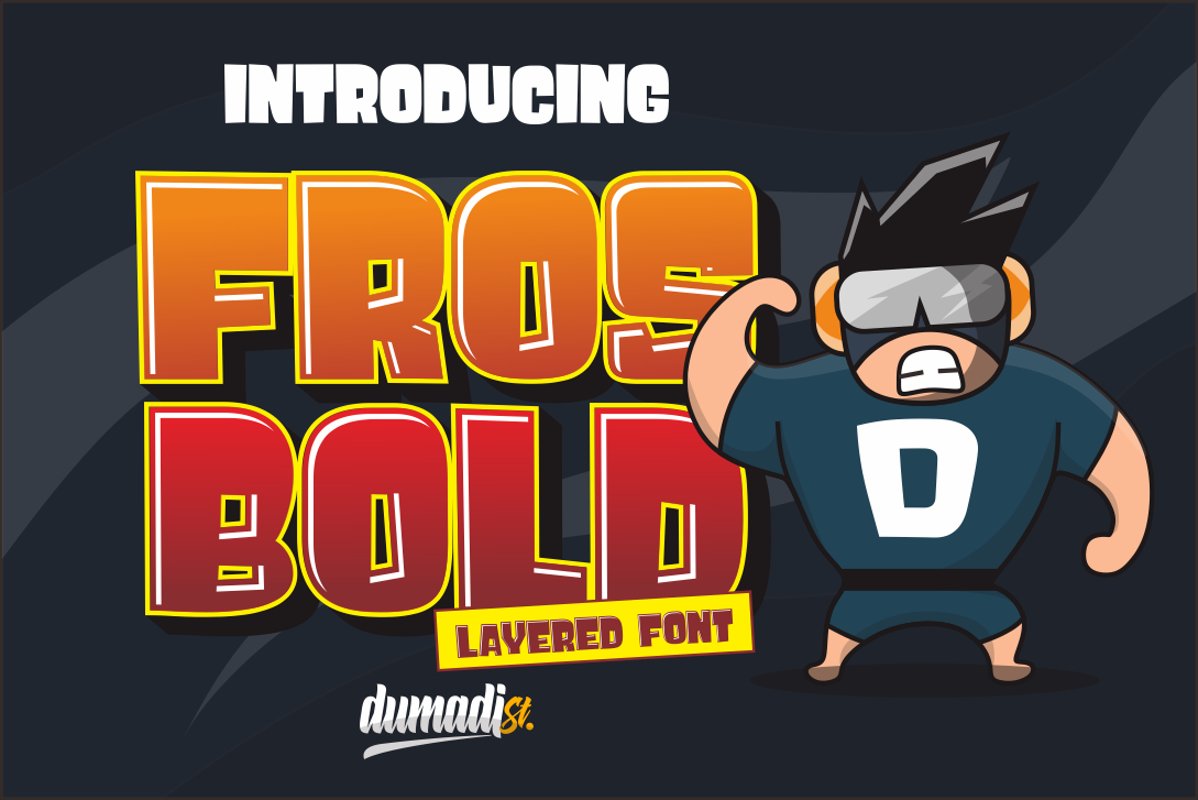
Fros Bold
FROS BOLD
FROS BOLD Shadow
FROS BOLD Line
FROS BOLD Inner
Frost Bold is a unique and funny font that is suitable for use in game logos, event titles, animal names, movie titles especially in animated films and of course can be used in other designs.
Fros Bold consists of layered layouts including:
Basic, Inner, Line and shadow.